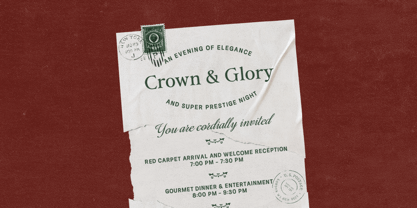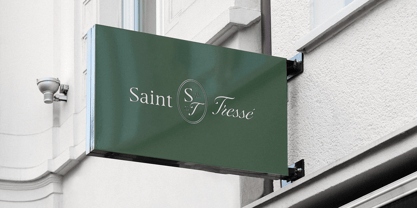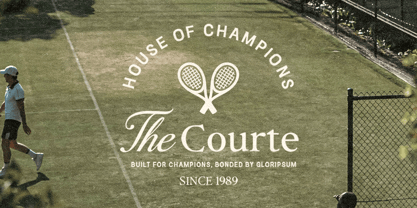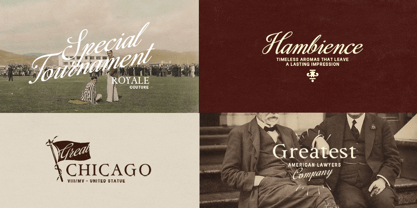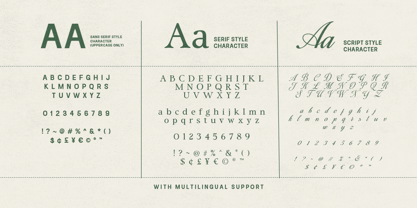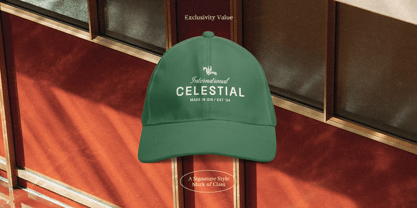
Royale Couture
par Sarid Ezra
La famille de polices Royale Couture a été conçue par Sarid Ezra et publiée par Sarid Ezra. Royale Couture contient 3 styles et options de package familial. En savoir plus sur cette famille
Royale Couture is an essential font collections that combining three fonts including bold serif, classic sans, and stylish script. This font trio also support multilingual, number and symbol. With the versatile style, You can use this font for any purpose such as logotype, branding, wedding invitations, and quotes. The best part is, you don't need to search for the pairing. It's gonna compliment each other.